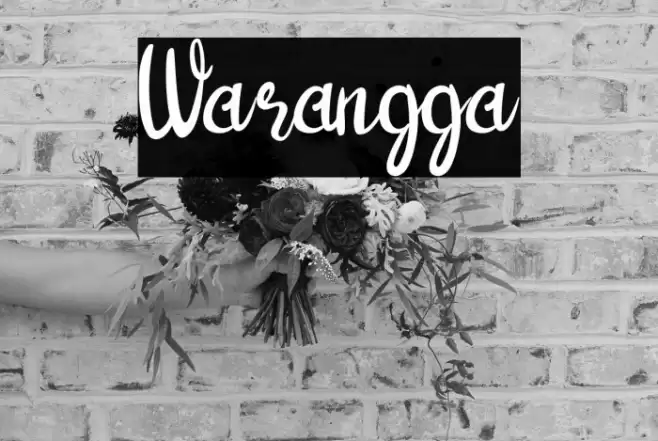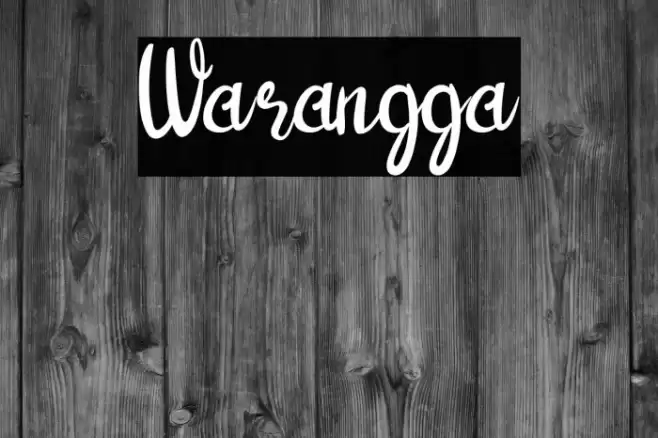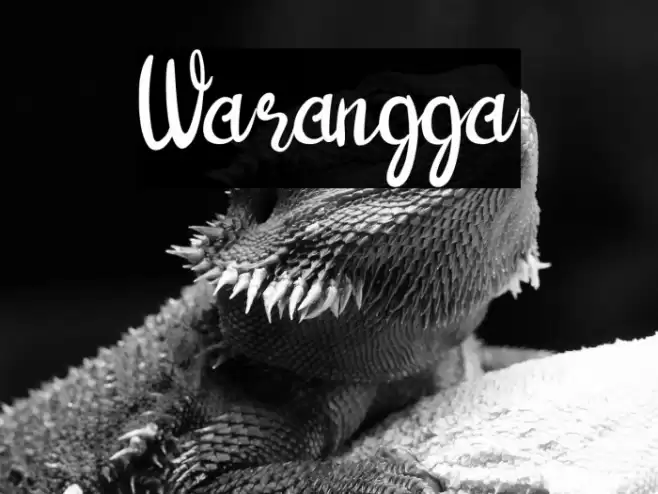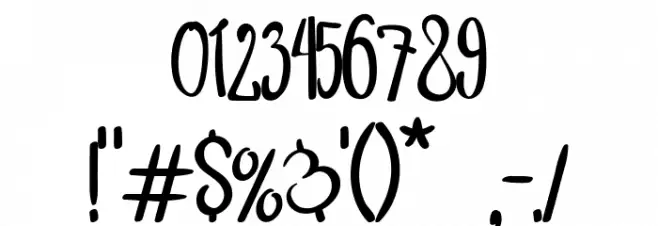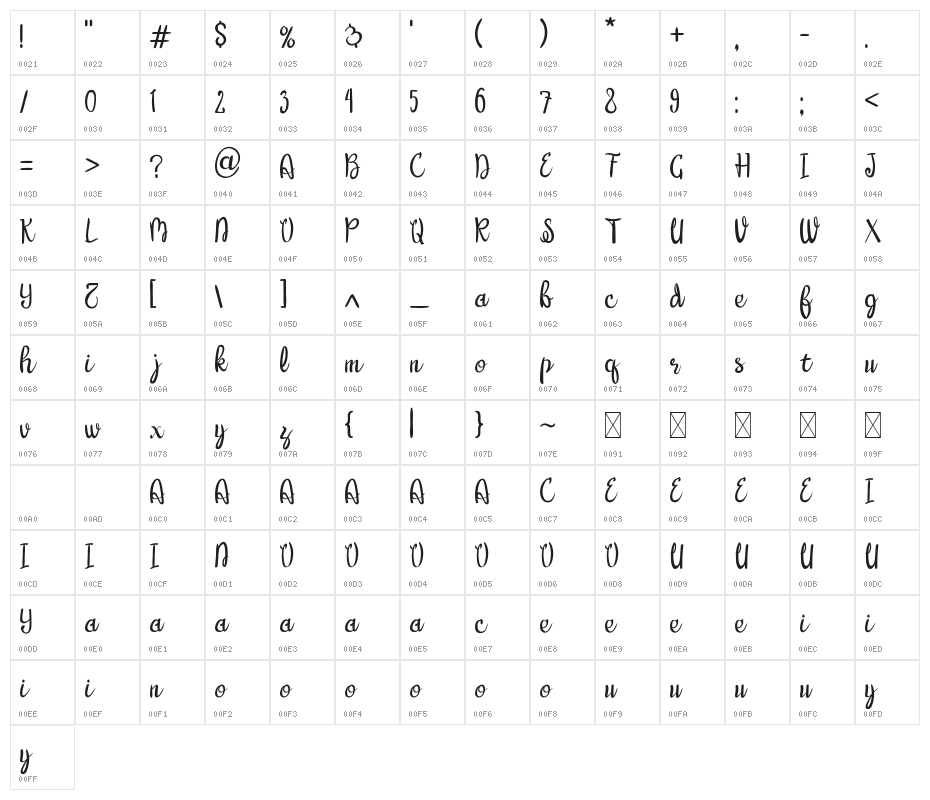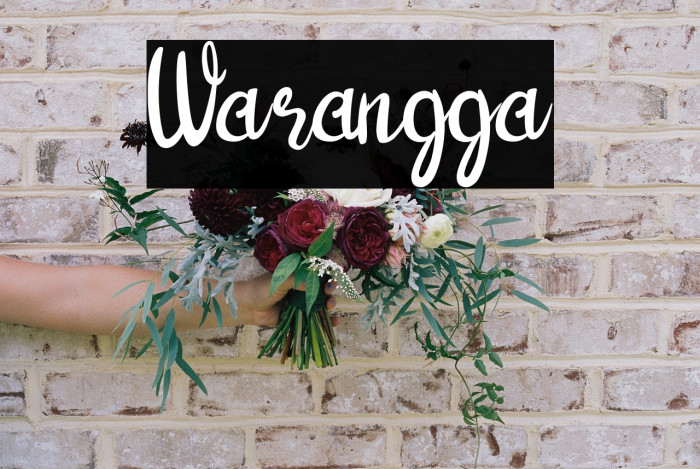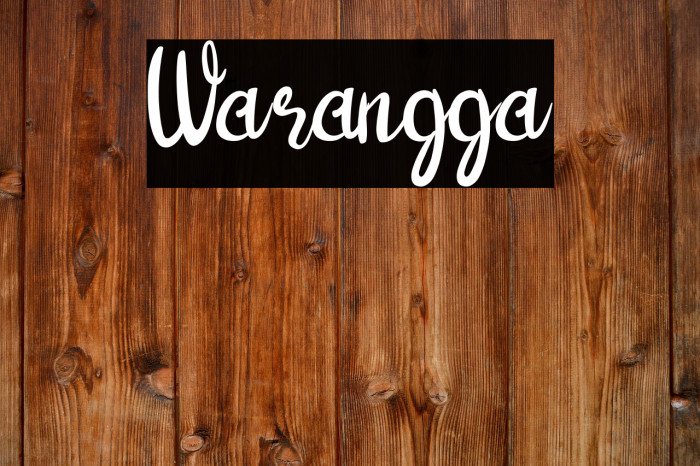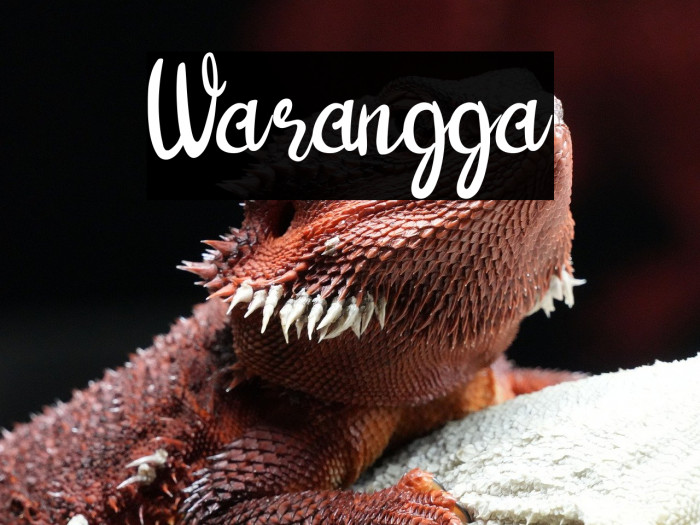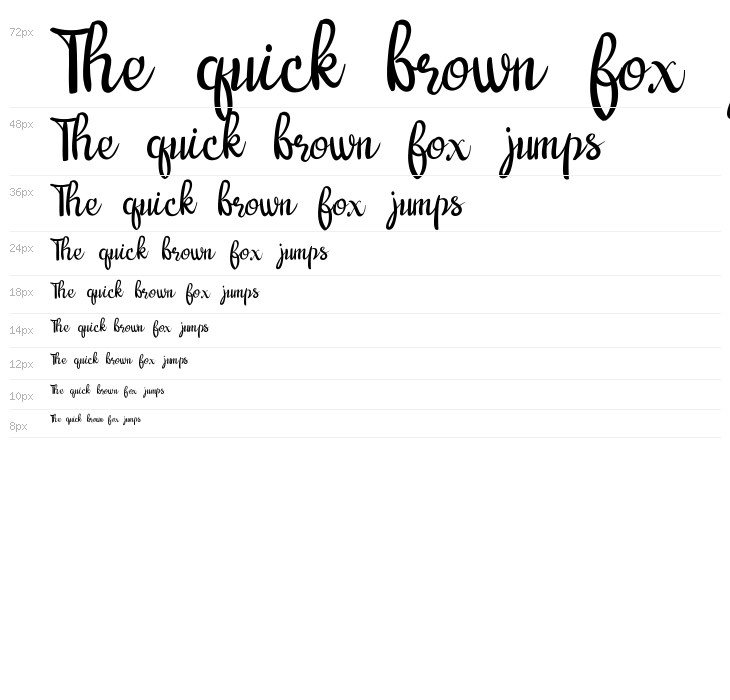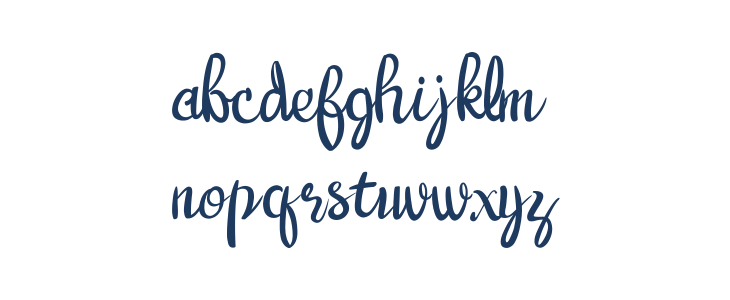
Warangga Font
Warangga Description
This font features a playful and whimsical handwritten style, characterized by its flowing and curvy letterforms. The uppercase letters exhibit a unique blend of bold strokes and delicate curves, creating a dynamic and lively appearance. The lowercase letters maintain a consistent style, with smooth connections and a slightly slanted orientation, enhancing the font's casual and friendly vibe. The numerals are crafted with the same playful spirit, ensuring uniformity across the character set. Special characters are creatively designed, adding to the font's overall charm and versatility.
A playful and whimsical handwritten font with flowing curves and dynamic strokes from Regular fonts.
- Proposed Projects: Ideal for greeting cards, invitations, playful branding, and children's book covers.
- Use Case: Logos, Headlines, Invitations